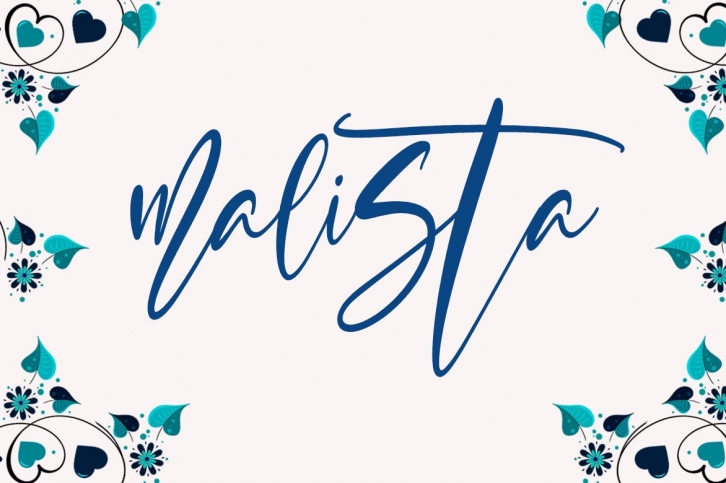
Malista is a trendy and unique font with an authentic style. It was designed by Gatype and it's a great choice for creative people who need such a font. It was released on August 5, 2021 and the file size is 2.32 MB. Malista will add an organic vibe to any design idea!